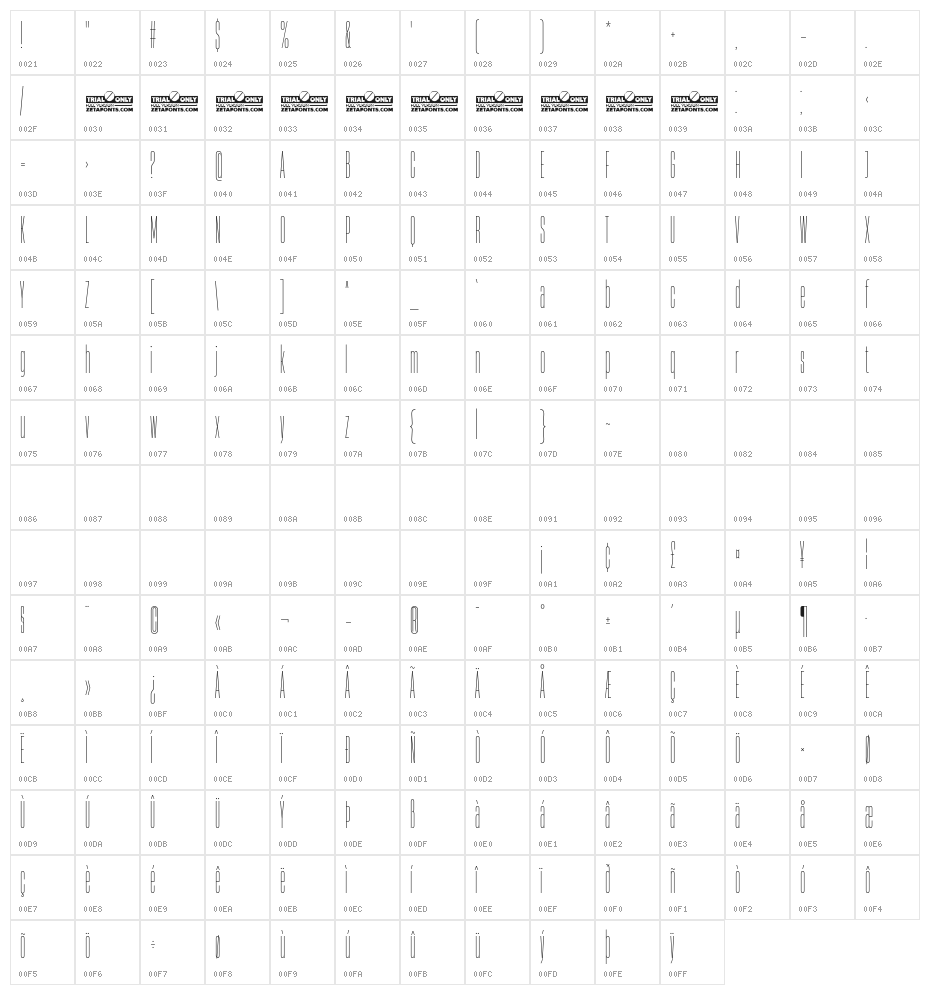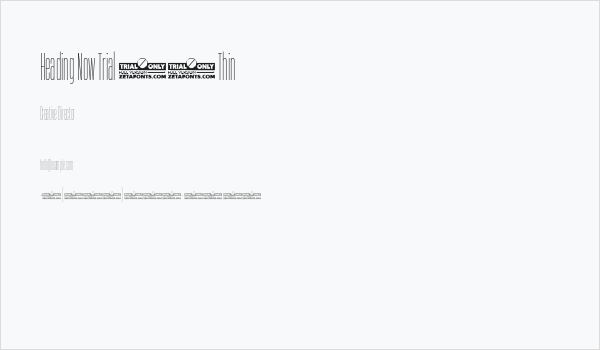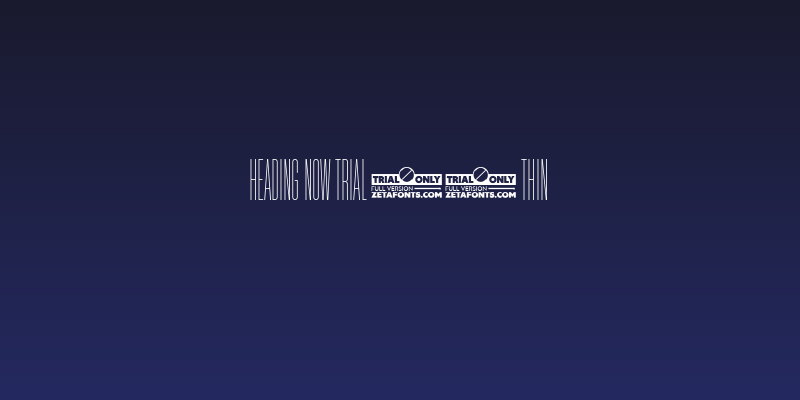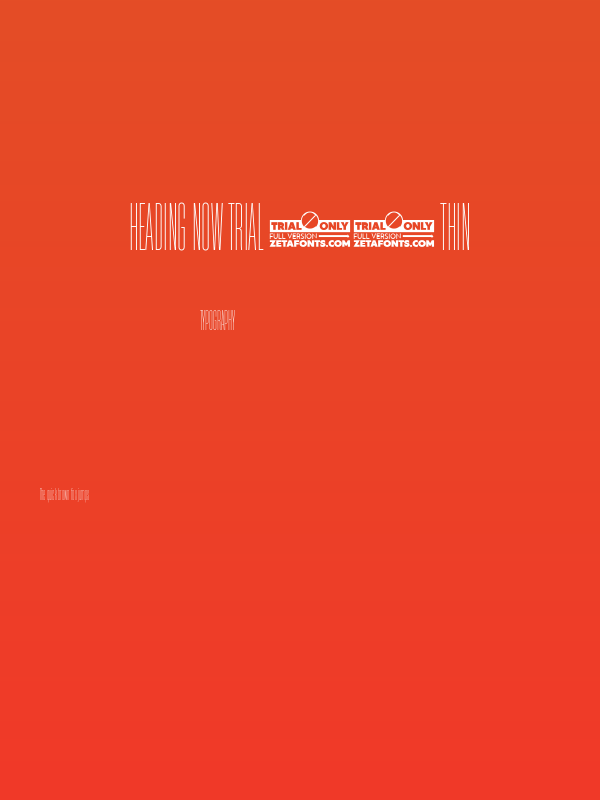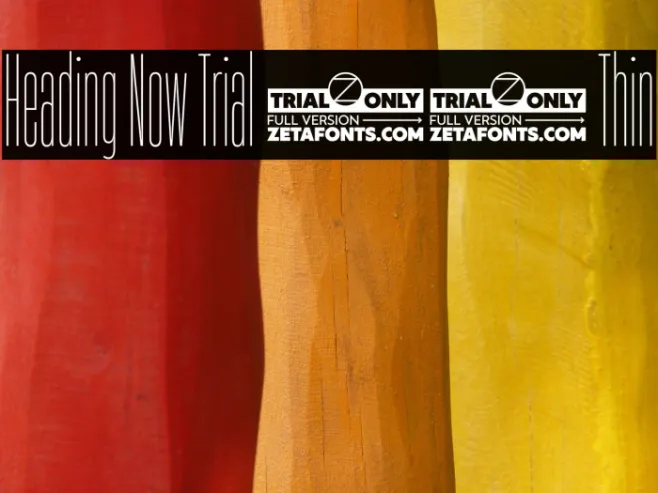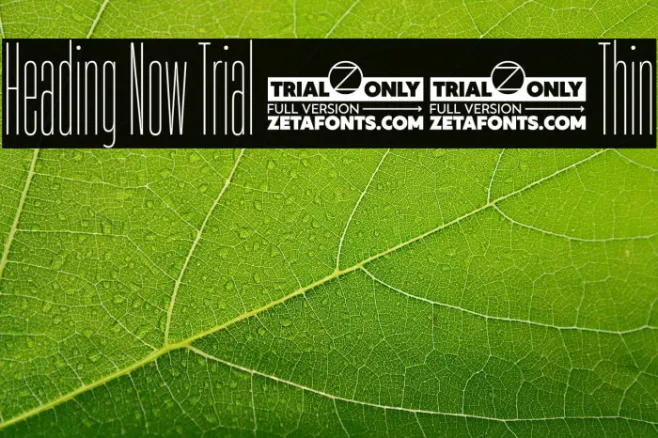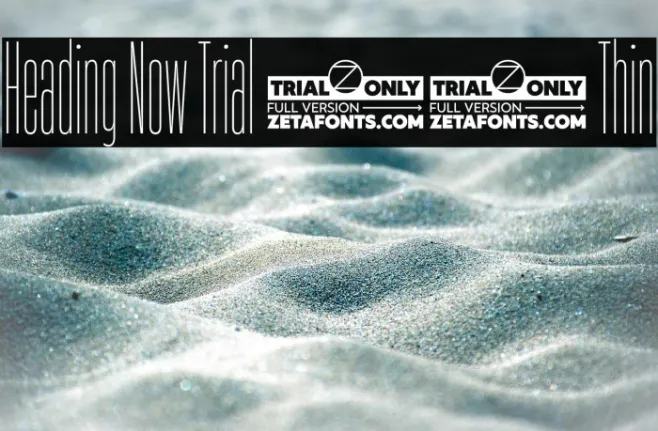
Heading Now Trial 01 Thin Font
Heading Now Trial 01 Thin Description
This font features an ultra-thin and elongated design, characterized by its tall and narrow letterforms. The strokes are consistent in width, creating a sleek and modern appearance. The uppercase and lowercase letters maintain a uniform height, contributing to a clean and minimalist aesthetic. The numerals and special characters follow the same thin and elongated style, ensuring visual harmony across all text elements. This font is ideal for creating a sophisticated and contemporary look, suitable for various design applications.
| Proposed Projects | Ideal for fashion magazines, luxury branding, modern posters, and minimalist web design. |